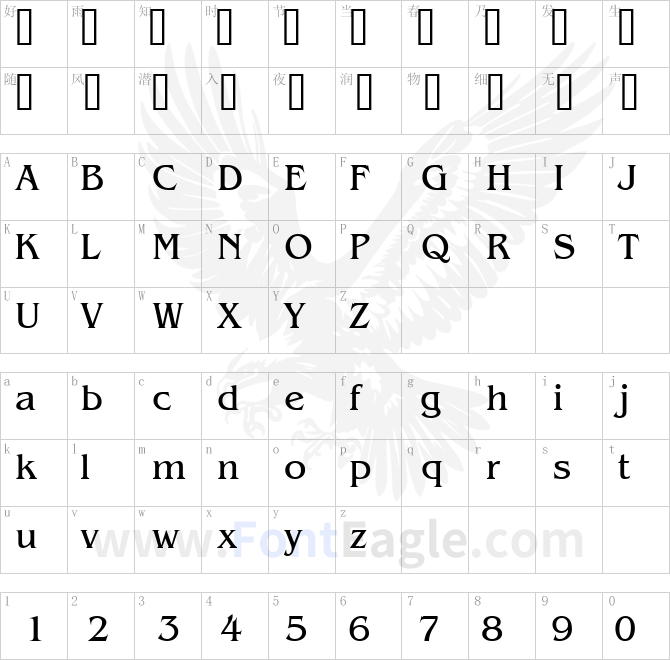
- Font name:Bangle
Bangle-Normal is a great font, widely used in graphic design, single-page menu design, poster design and other fields, and is deeply loved by designers.Bangle-Normal download.